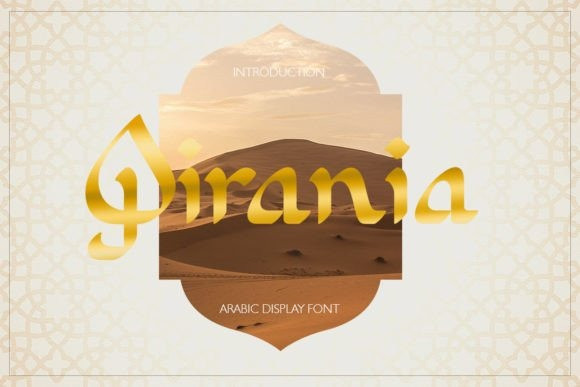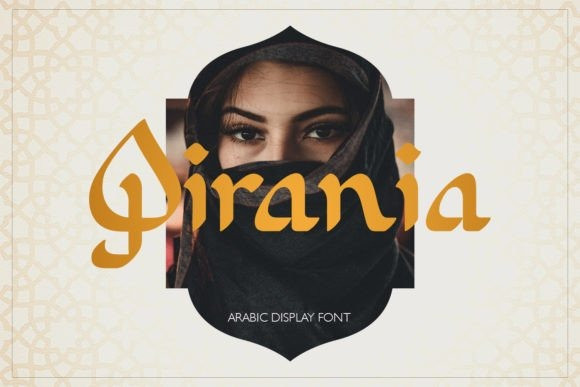
Qirania Font
Qirania Font is inspired by Arabic or Middle Eastern style calligraphy. This font is made with Latin characters so that it can be read internationally. This font is perfect for Middle Eastern or Muslim designs. In addition, the Qirania font can also be used for other decorative design concepts.